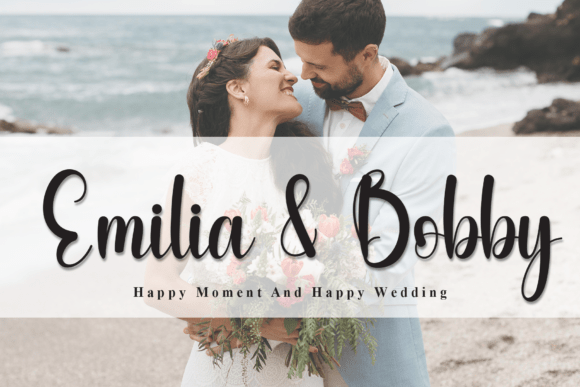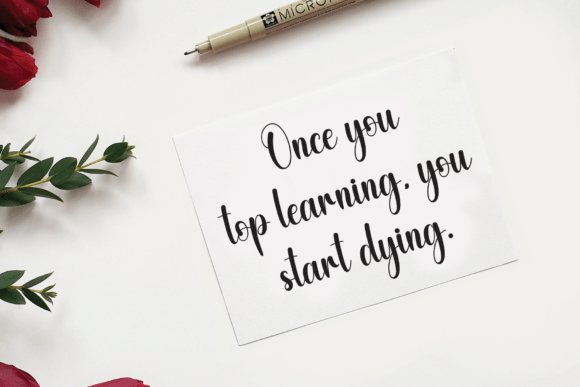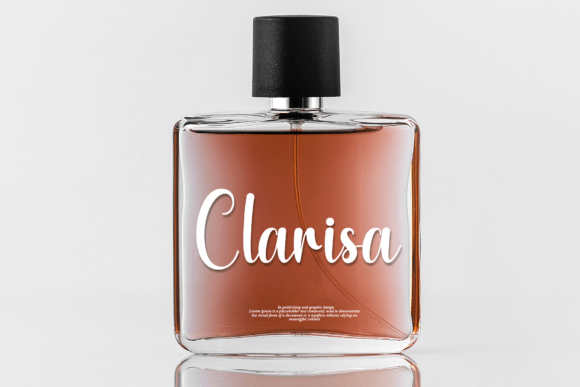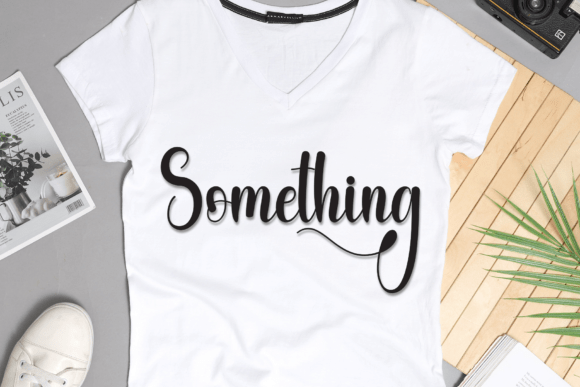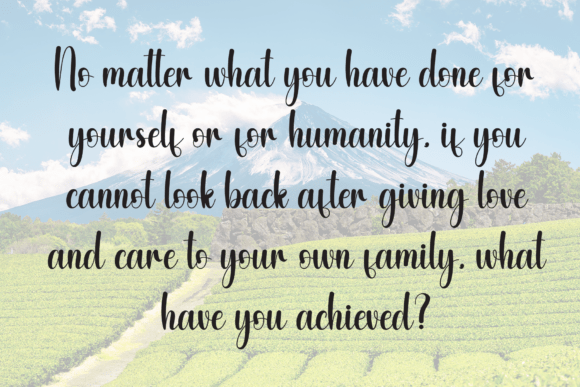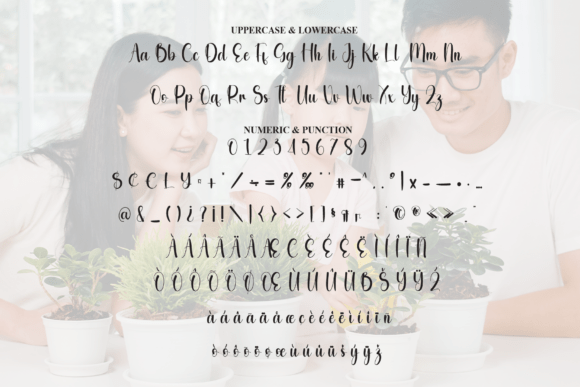
Introducing Family Font: The Ultimate Handwritten Display Font for Your Artistic Projects
Are you tired of using the same old fonts for your artistic projects? Do you want to add a touch of personality and whimsy to your designs? Look no further than Family Font, a captivatingly cheerful handwritten display font that’s sure to bring a breath of fresh air to your creations. In this article, we’ll dive into the enchanting allure of Family Font and explore how it can elevate your designs to new heights.
A Font that Exudes Adorable Charm
Family Font is a beautifully crafted handwritten display font that exudes adorable charm. Its lively cursive style seamlessly weaves together a sense of joyfulness with a dash of elegance, making it perfect for a wide range of artistic projects. Whether you’re designing stunning wedding invitations, exquisite greeting cards, or enchanting designs that require a delightful sprinkle of personality, Family Font is the perfect choice.
Bringing Creativity and Individuality to Your Designs
What sets Family Font apart from other fonts is its ability to bring creativity and individuality to your designs. This font is more than just typography – it’s a jubilant tribute to creativity and individual expression. With Family Font, you can add a personal touch to your designs that reflects your unique style and personality. Whether you’re a designer, crafter, or DIY enthusiast, Family Font provides the perfect opportunity to let your creativity shine.
Family Font is incredibly versatile and can be used for a wide range of design projects. Here are just a few ideas to get you started:
- Blog headers and titles
- Product labels and packaging
- DIY craft projects and scrapbooking
Why Choose Family Font?
So why choose Family Font over other fonts? Here are just a few reasons:
- Unique and eye-catching design: Family Font’s lively cursive style and adorable charm make it a standout font that’s sure to grab attention.
- Highly versatile: Family Font can be used for a wide range of design projects, from wedding invitations to social media graphics.
- Supports individuality and creativity: Family Font is the perfect choice for designers and crafters who want to add a personal touch to their designs.
Tips for Using Family Font
Here are a few tips for using Family Font in your designs:
- Experiment with different colors and textures: Family Font looks great in a variety of colors and textures, so don’t be afraid to get creative.
- Pair with other fonts: Family Font pairs well with other fonts, so try combining it with a sans-serif font for added contrast.
- Use for headlines and titles: Family Font is perfect for headlines and titles, where its lively cursive style can really shine.
In conclusion, Family Font is a captivatingly cheerful handwritten display font that’s perfect for designers and crafters who want to add a touch of personality and whimsy to their designs. With its adorable charm, lively cursive style, and versatility, Family Font is sure to bring a breath of fresh air to your artistic projects. So why wait? Dive into the enchanting allure of Family Font today and take your design exploration to new heights!